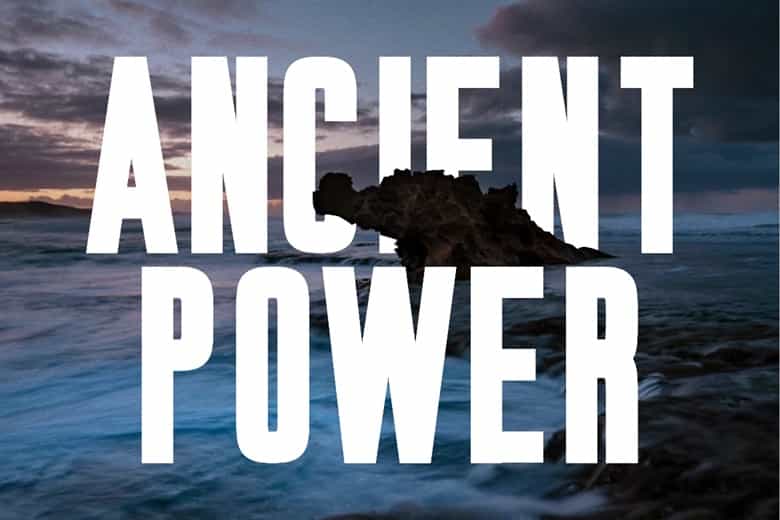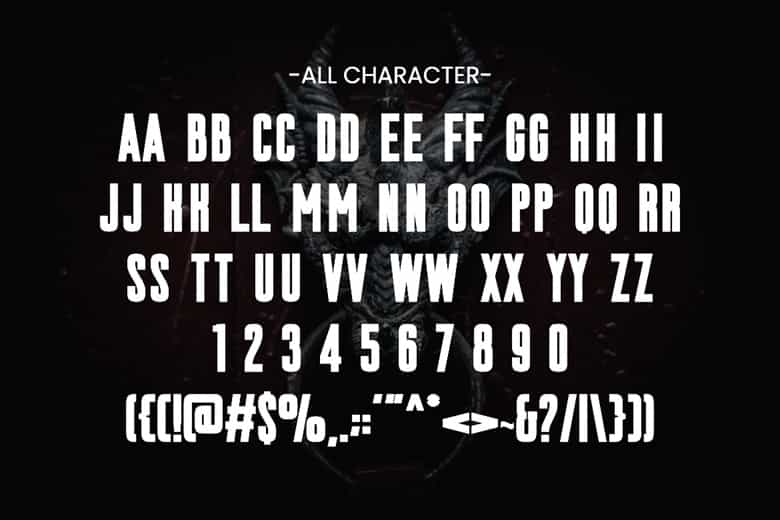
Dragons is a new sans-serif font, the letterforms are tall and clean – all features of a strong and professional branding. As a strong and minimalist font, it is suitable in a logo, poster, presentation, header on the site, and eye-catching marketing graphics.